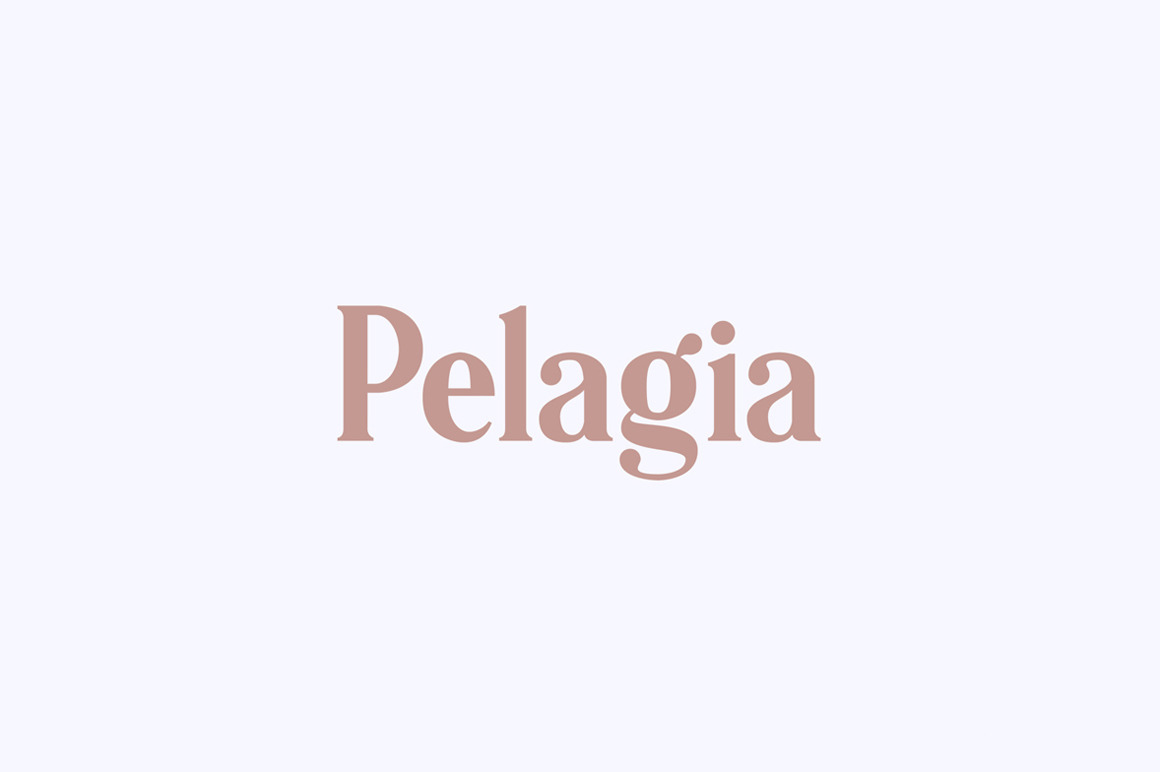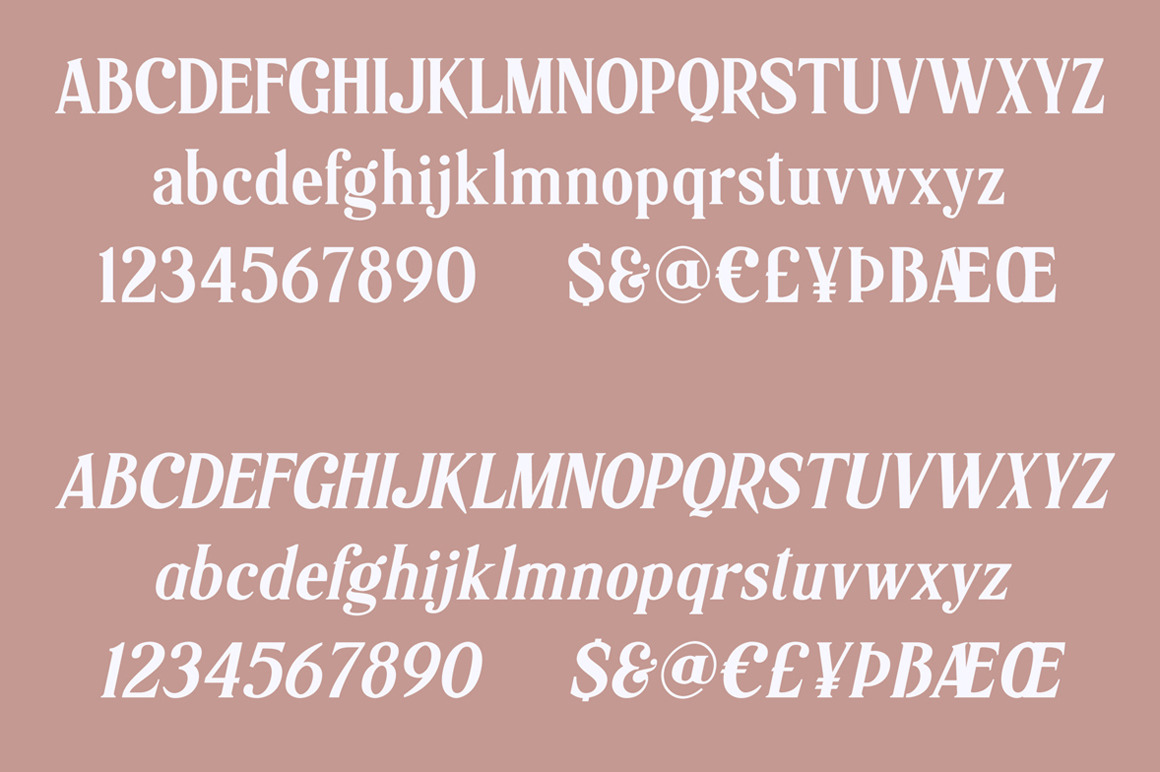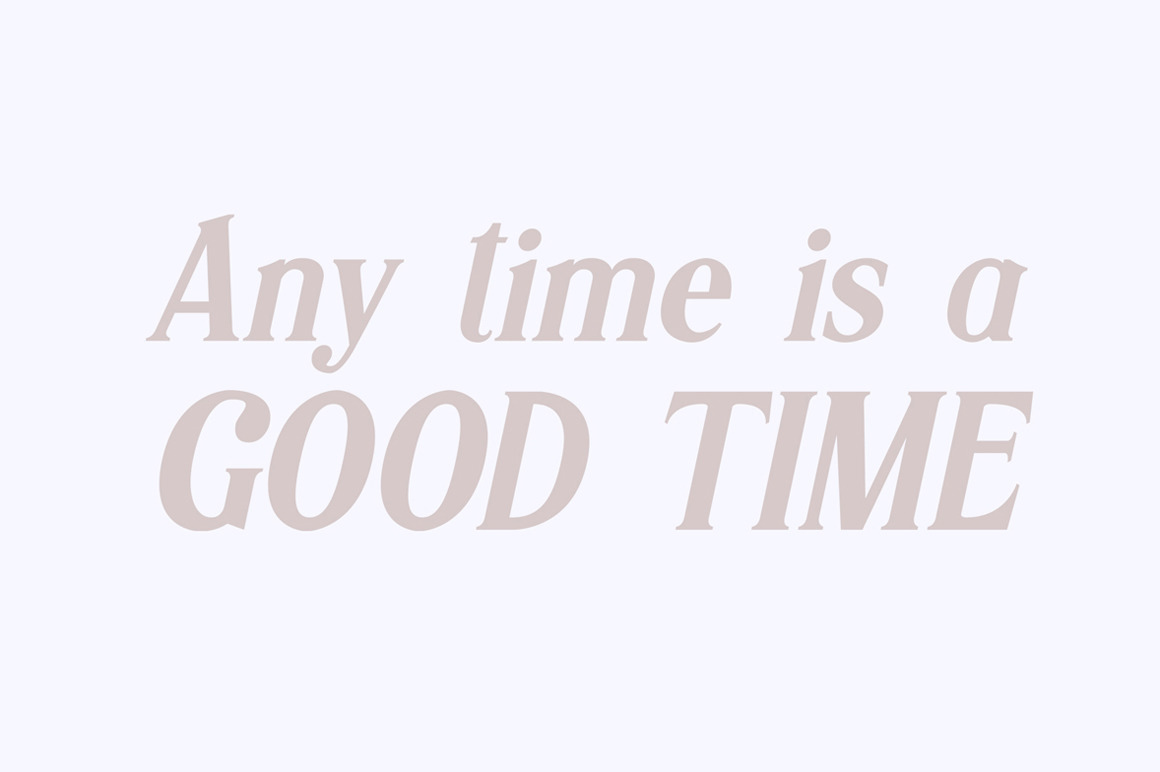
Pelagia Font
Pelagia is a modern font inspired by classic serifs. The font name is dedicated to my grandmother, whose name is Pelagia. Font is great for logo design, titling and headers, branding, posters and more.